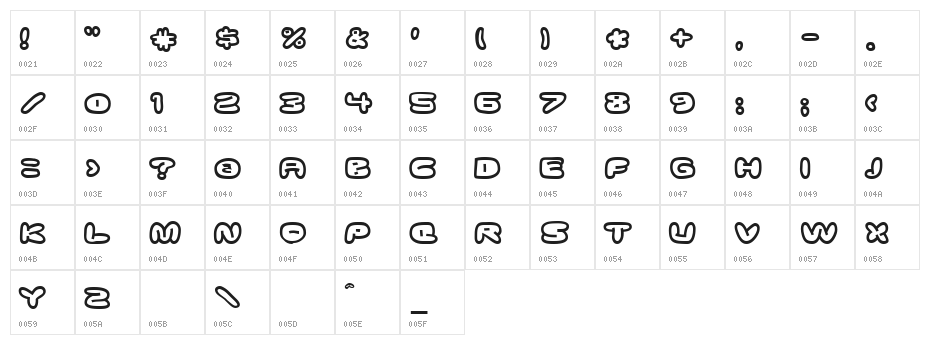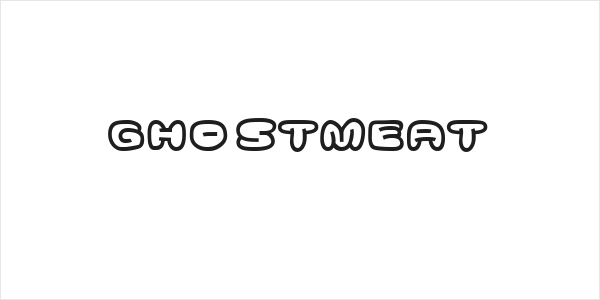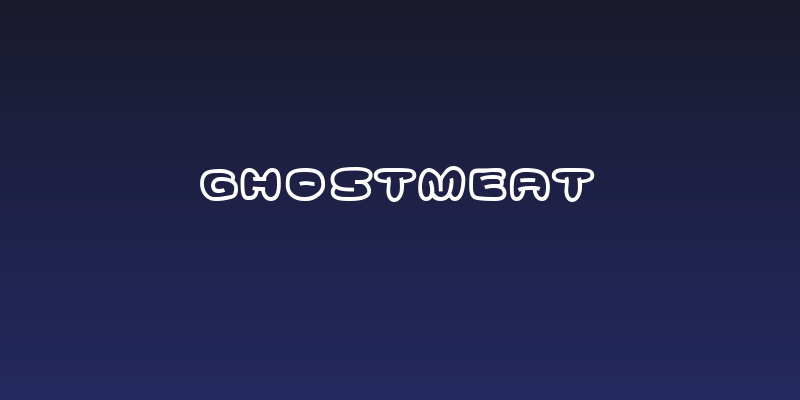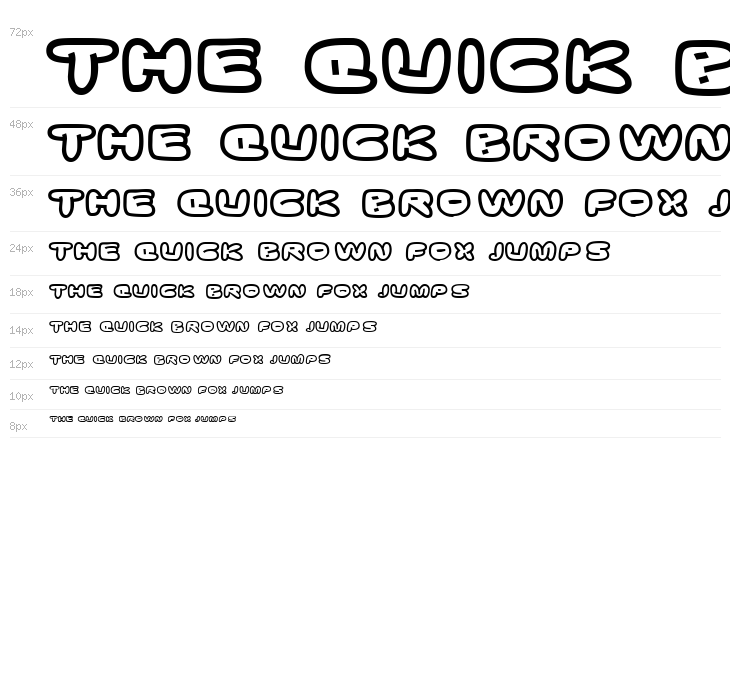
Ghostmeat Font
Ghostmeat Description
This playful and bold font features rounded, bubble-like characters with a thick outline, giving it a cartoonish and friendly appearance. The letters are evenly spaced with a consistent stroke width, creating a cohesive and balanced look. The font's unique style is characterized by its soft curves and exaggerated forms, making it stand out in any design. It includes a full set of uppercase and lowercase letters, numbers, and a variety of special characters, ensuring versatility for different design needs. The overall aesthetic is fun and approachable, suitable for projects that require a touch of whimsy and creativity.
| Overall Style | Playful, Cartoonish |
| Proposed Projects | Ideal for children's books, comic strips, playful branding, and party invitations. |